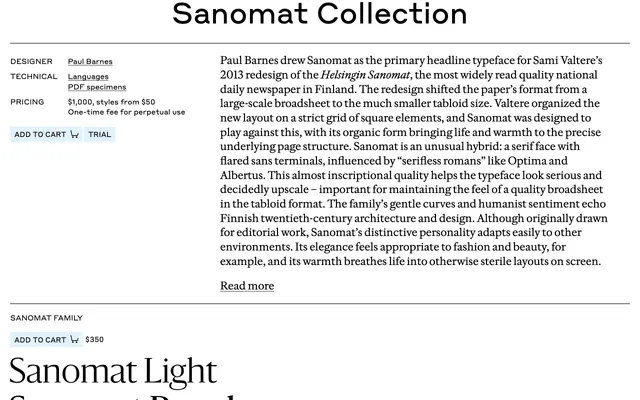
Sanomat
Commercial Type · Paul Barnes · 2013
Paul Barnes's hybrid serifless roman drawn for the 2013 tabloid redesign of Helsingin Sanomat, with humanist curves echoing Finnish design and a wide multi-width family.
A four-width family by Paul Barnes, drawn as the primary headline face for Sami Valtere's 2013 redesign of Helsingin Sanomat when Finland's largest daily moved from broadsheet to tabloid. Seven weights run from Light to Black with italics across Sanomat, Sanomat Condensed, Sanomat X Condensed and Sanomat Text, plus variable fonts. Sits as a hybrid serif with flared sans terminals, in the lineage of Optima and Albertus, with humanist curves that echo Finnish twentieth-century architecture and design. Suits newspapers, fashion, beauty and any editorial system that wants warm authority.
Commercial Type describe Sanomat as a hybrid serif with flared sans terminals, influenced by serifless romans like Optima and Albertus. Drawn for Sami Valtere's 2013 tabloid redesign of Helsingin Sanomat, with humanist curves echoing Finnish twentieth-century architecture.